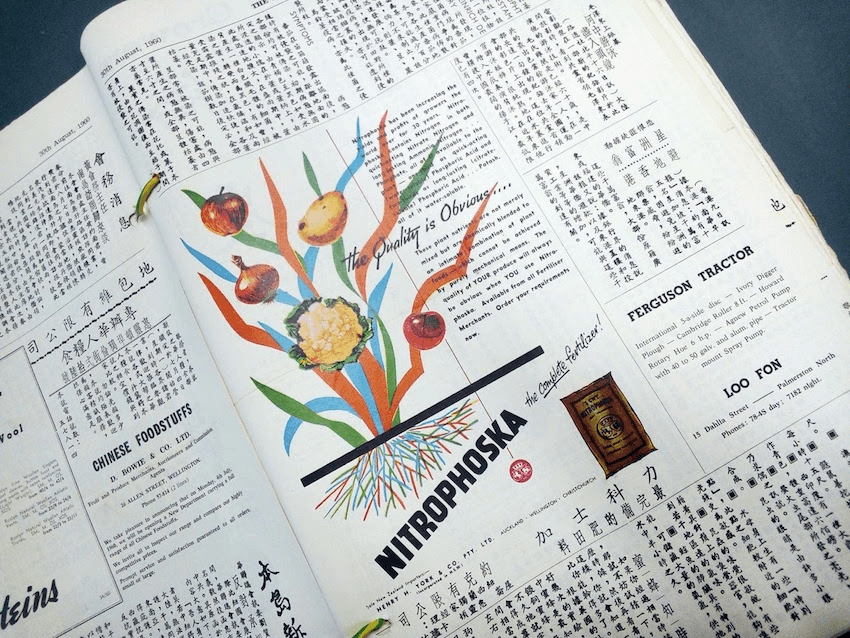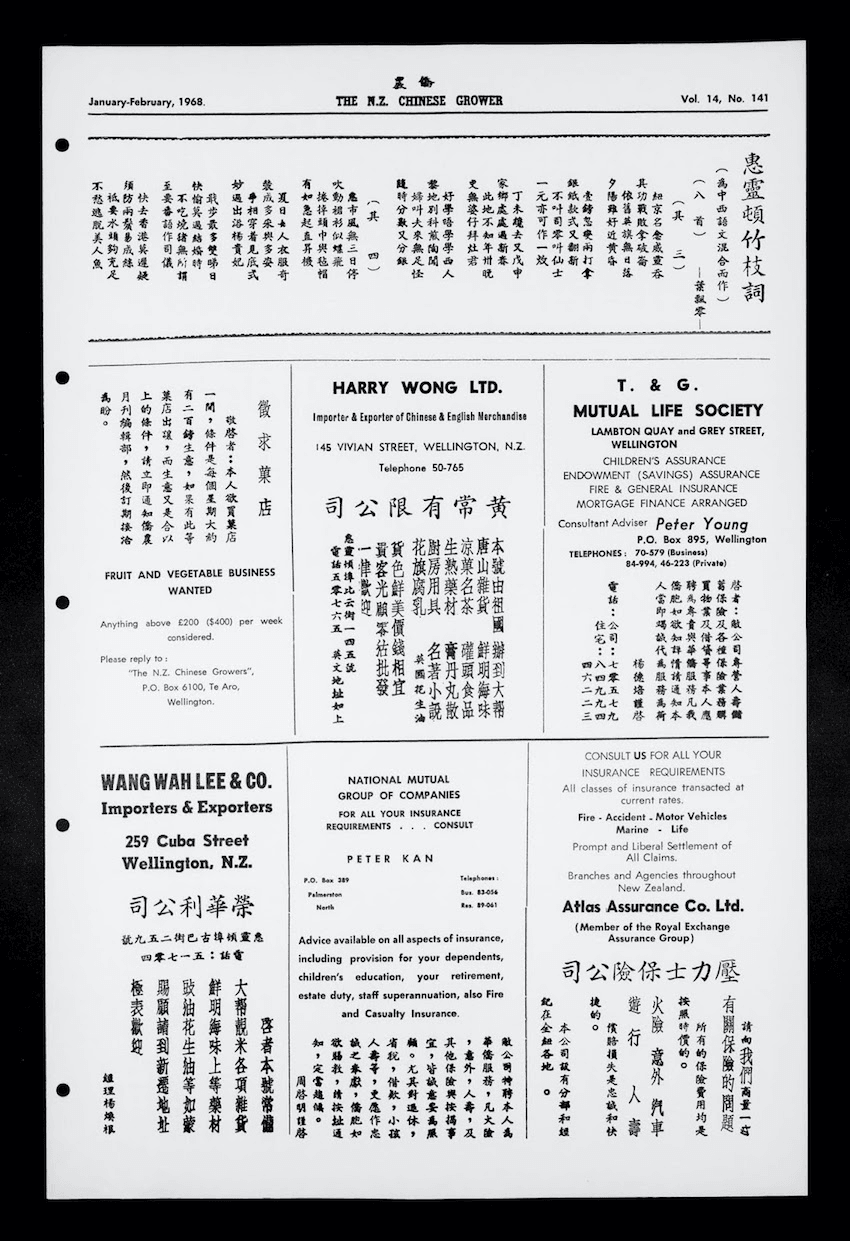
Heavy metal afterlives: An appreciation of the NZ Chinese Growers Monthly typeface
Kerry Ann Lee looks at the enduring appeal of Chinese typeface and letterpress design in the digital age.
In 1952, a slow boat from Hong Kong arrived in New Zealand carrying one metric tonne of lead type. This would be used by the Dominion Federation of New Zealand Chinese Commercial Growers Incorporated to print The NZ Chinese Growers Monthly Journal (僑農月刊) until 1972. Stories about the Chinese Growers and their journal have circulated through families for decades, and been made more accessible thanks to scholarship by Wai-te-ata Press, landmark books by Ruth Lam, Lily Lee and Nigel Murphy, and an essay by Emma Ng. A taonga that lives up to its namesake, the Growers Journal empowered the post-war Cantonese Chinese community to grow and organise in Aotearoa. As this country’s only surviving Chinese language printing typeface collection, it also stands as a glorious example of grassroots community publishing and letterpress design.
A typeface is the design of a letterform and refers to a family of fonts which display particular attributes of a typeface. Ya-Wen Ho (賀雅雯) from Wai-te-ata Press explained that the Chinese Growers type comprises of nine font variations from which there are three different Chinese character typefaces. In Cantonese, Kai She 楷書 or ‘Standard Script’ is the most common, appearing as headline and body copy, Fong Sung 仿宋, references woodblock printing and books produced during the Song dynasty; a special variation called Sheung Fong Sung 長仿宋 was used for subtitles. The first two are perfectly square while the last is long and skinny, like a stretched condensed face.
Movable type printing was invented a thousand years ago by Bi Sheng (990–1051), propagating the written word throughout China during the Song dynasty (960–1279). Literature was a privileged pursuit, while the common person might have barely known how to write their own name. During this period, ‘Fong Number One’ as he’s apocryphally known, was first bestowed our family surname by a general, or perhaps a king after doing a good deed. I used to practise writing this family name character – 鄺 – over and over again. My awkward chicken-scratches exposed my hardwiring as a diasporic third culture kid. I grew into a shameless il-literati scholar, using my visual literacy in art and design and enough make-do moxie to get by. I know little about Chinese typesetting and defer to MS Unicode equivalents.
My own sideways approach to Chinese language learning involves slowing down to listen and observe, and asking a lot of questions. The “art of looking sideways”, as suggested by designer Alan Fletcher, encourages new awareness and appreciation of old forms. If language is a bridge for communication, these tiny chunks of lead type might be breadcrumbs on a trail without end, scraps I can see and grasp short of actually reading or tasting the words on my tongue.
As a primer on Chinese typography, Ya-Wen introduced me to Mariko Takagi’s beautiful book, Hanzi Graphy: A typographic translation between Latin letters and Chinese Characters (2014). Nuance is everything. There is Hanzi (Traditional full-form characters used in Hong Kong, Taiwan and Macau), Hanzi (Simplified characters used in China and Singapore) and Kanji (Chinese characters adopted by Japan). Takagi demystifies Chinese language type as more than just pictograms, rather a “writing system of exquisite complexity” that parallels Latin type. The Chinese Growers type follows “function over form” to dutifully communicate information unnoticed, echoing Beatrice Warde’s essay, The Crystal Goblet, or Printing Should Be Invisible (1930), yet its stroke forms are essential. Equally so is the immense labour and love involved in letterpress typesetting and printing the publication.
Comparing apples with oranges, Latin type and Hanzi have different sizing systems. Due to the volume of characters, Chinese type pieces, or “sorts”, came in fewer sizes, with their own measurement scale from 0-7. Unlike their Western counterparts (like 12pt Times New Roman), the larger the number, the smaller the size (a “1” used for headline titles, translates to 27.75 points). Both systems have worked together in bilingual typesetting by numerous printing companies in Hong Kong, including Universal Type Founders which produced the Growers type. The Journal features English for proper nouns (people and place names) alongside Chinese characters.
The Journal was published locally in Wellington. The photograph of editor Lionel Chan (Chan Lai Hung 陳賴洪) sitting at his office desk was taken above the produce auction warehouses on Blair Street. Lionel’s children Ting and Danny were brought in to do typesetting. In its final years, the letterpress composition room moved to Lionel’s home in Newtown. The Journal served county associations (Seyip, Tung Jung and Poon Fah) and church groups who would promote their meetings and events. Lots of Wellington CBD-based businesses advertised, including importers and exporters of Chinese foodstuffs, dry goods, medicine and books. It also promoted financial services, banks, insurance and travel agents — Chinese businesses wanting to reach out to Chinese clientele.
The Federation of Growers worked together to advance the welfare and rights of Chinese in New Zealand whether or not they were market gardeners. Significant moments of political organisation for the community, like uniting to lobby the government around rice quotas, were documented through AGM minutes or special editorials during the first decade of the Journal. When the first editor Dan Chan (陳中岳 Chan Chung Yock) came on, he was supported by David Fung (Fung Chiwei 馮智偉), Chan Sou Nam (陳秀南), Wong Cho Nam (黃灼南) and others, after which Charlie Shek (Shek Chong 石松) took over as the paper’s second editor. At its peak, 700 copies per issue per month were distributed to Federation members via postal mail.
Since its first issue in July 1949, the Journal occasionally printed poems and stories to accompany news and advertising features. Upon receiving a government notice in 1960 to stop publishing political news from abroad, the Journal began to feature an explosion of literary pieces, under third and final editor Lionel Chan. A poet and a calligrapher who enjoyed writing, Chan penned a series of poems, Wellington Bamboo Branch Songs, and published them in the Journal under the pseudonym, A Scattered Leaf.
Ya-wen and I talked about mutual friends who run letterpress studios abroad and are keeping Chinese letterpress alive through international outreach, education, and creative revival. It’s a very literal desire and dedication to ship a metric tonne of lead type across the world with you. A few years ago, I visited the office of one of Cuba’s first Chinese community newspapers, active in the late 1930s, in Barrio Chino de La Habana, one of the oldest Chinatowns in Latin America. “There are diasporic Chinese newspaper rooms all over the globe,” said Ya-wen. “The transmission of heavy type is a parallel history to the migration of the people. Wherever they went, they wanted to take their language with them. Even in places where the language is alive and well like Taipei or Hong Kong, young graphic designers are gravitating towards it because the script is pre-digital and it has its own beauty and aura.” I can see why. The Kai She typeface is balanced, open and perfect on paper.
He picked up a copy of the latest Home Voice newspaper and put it in his book bag on the way out.